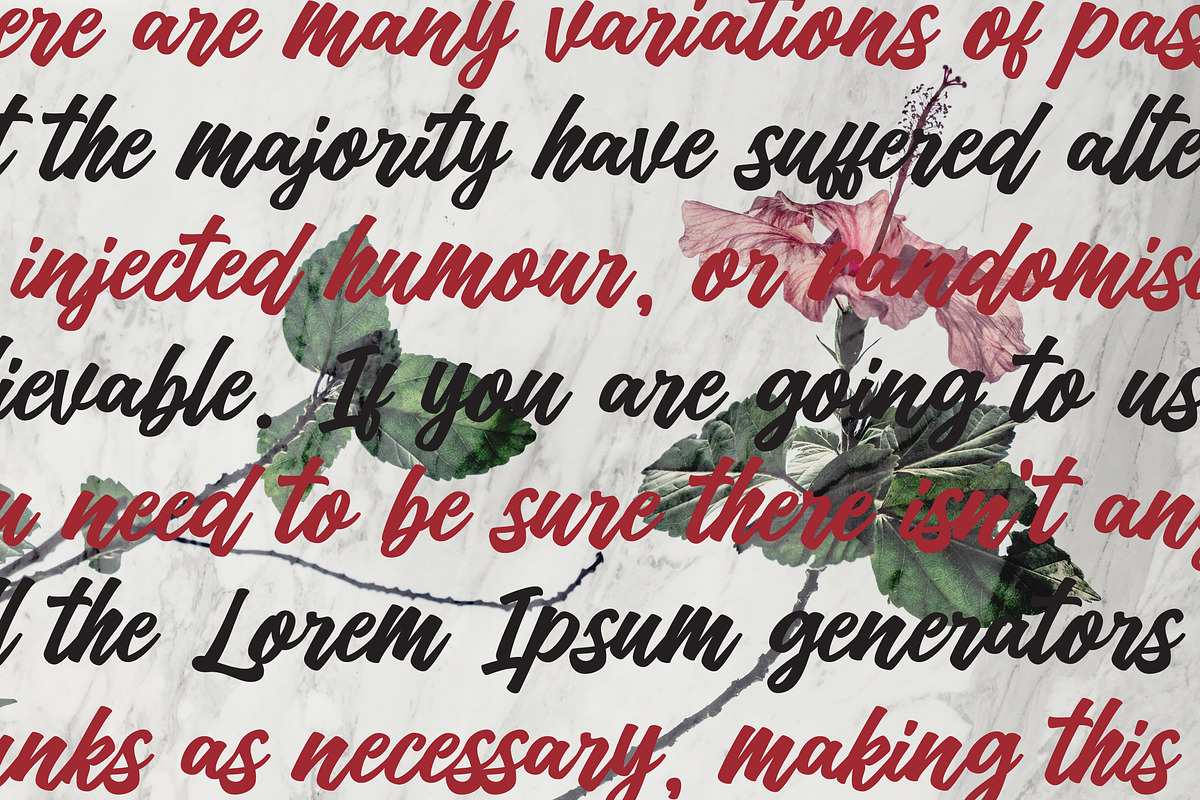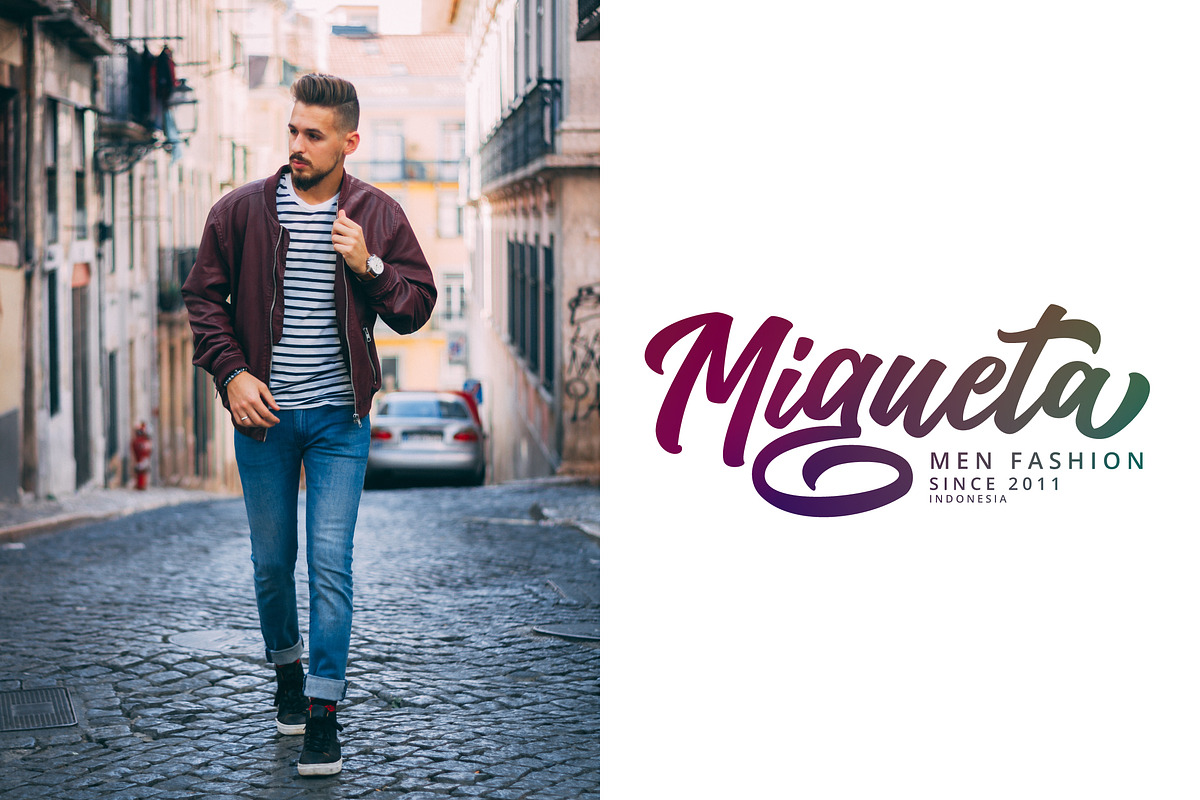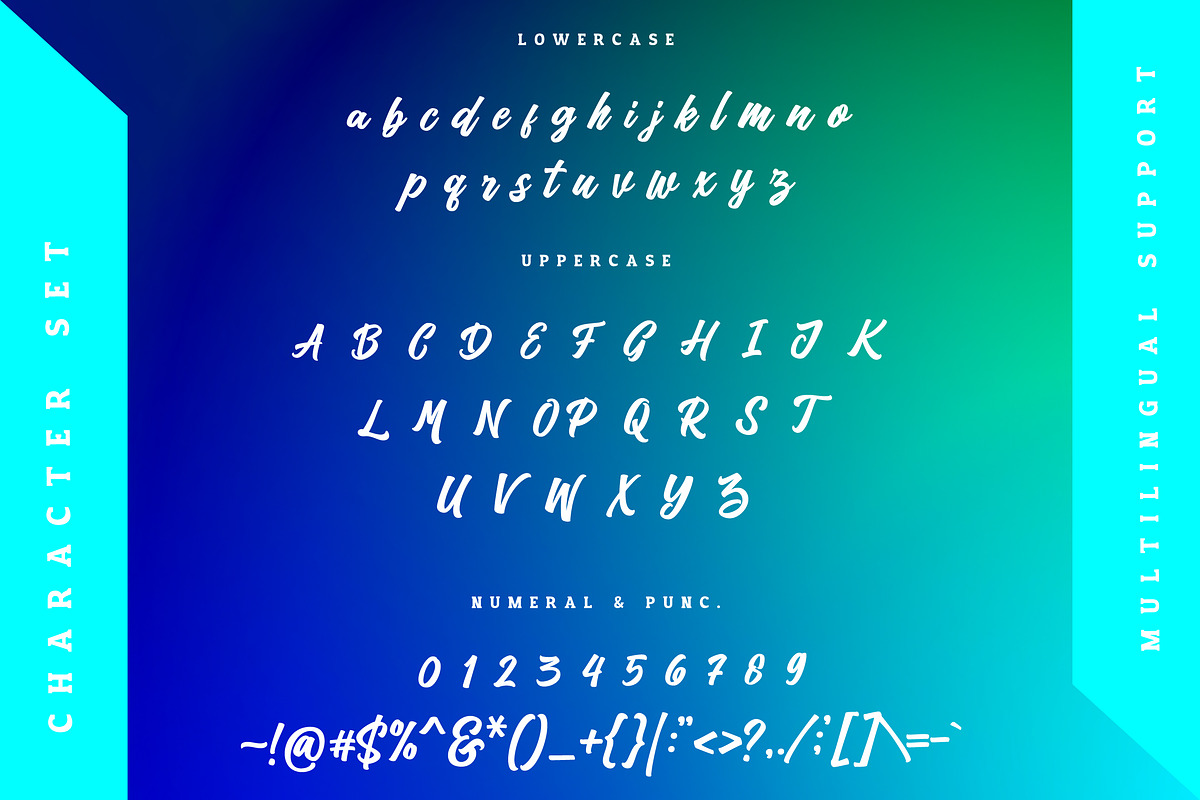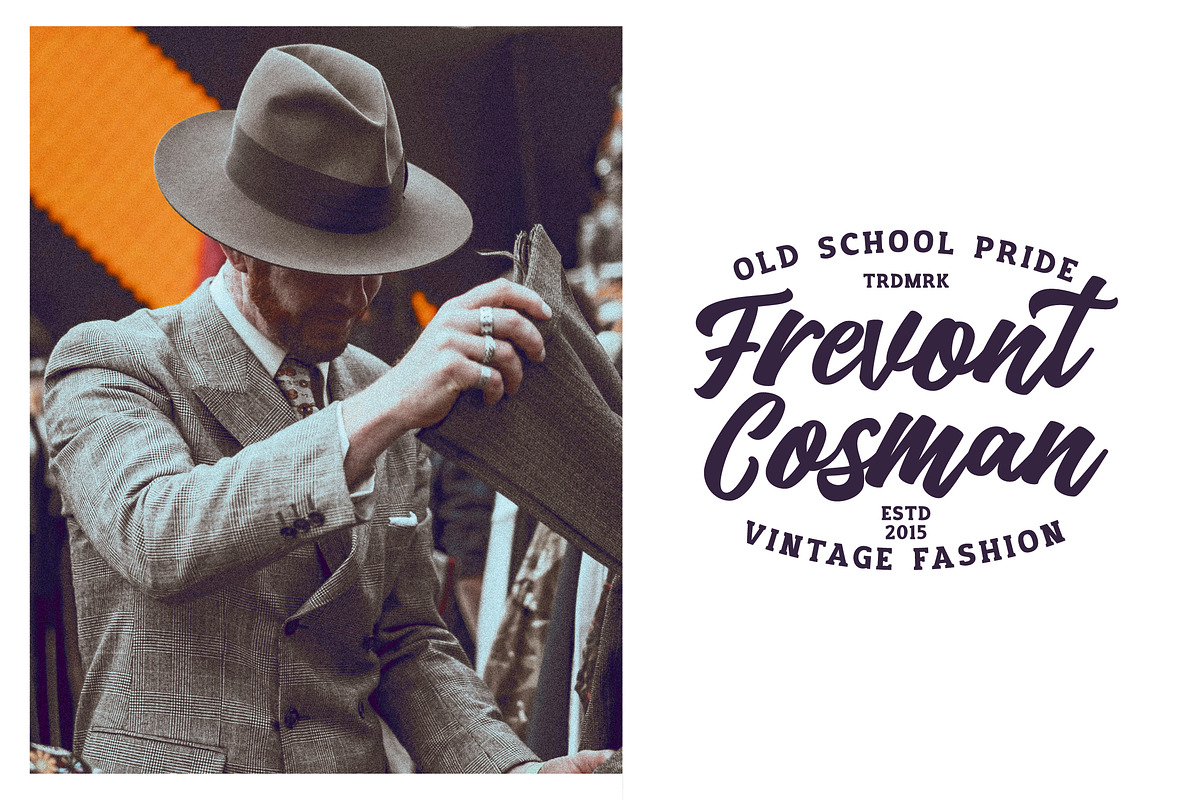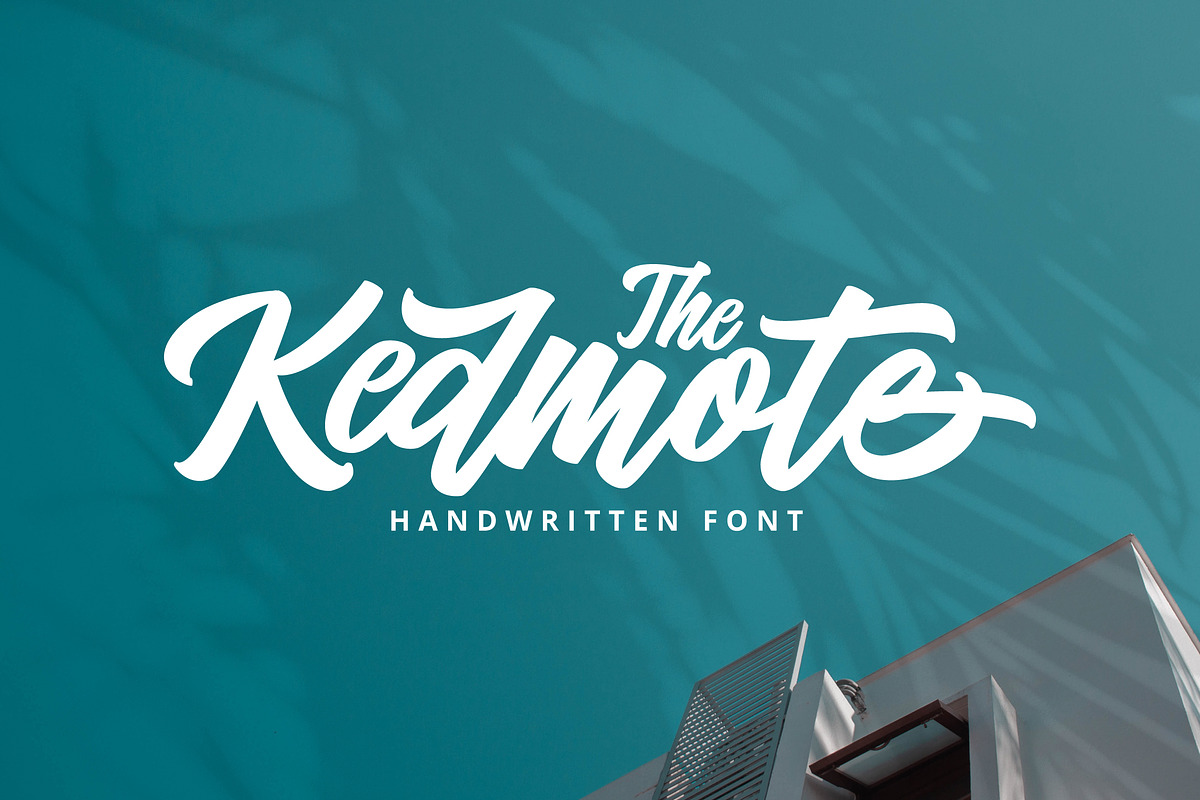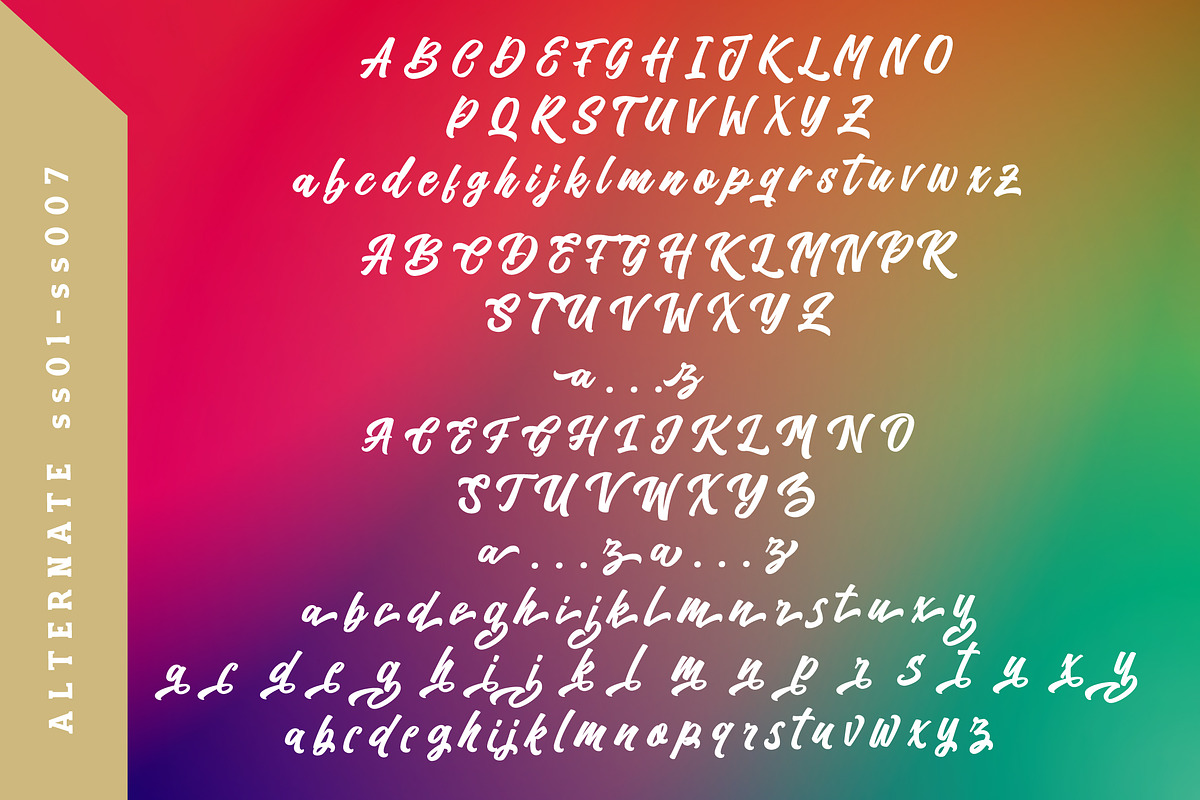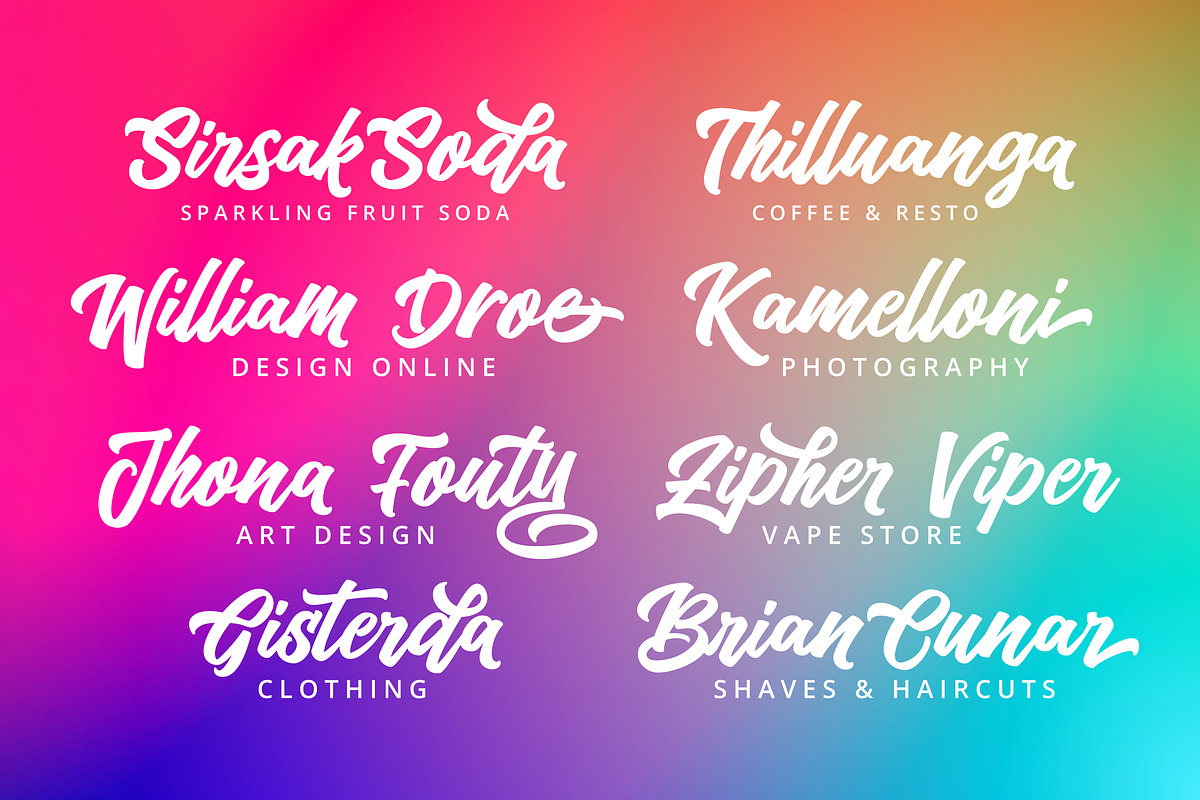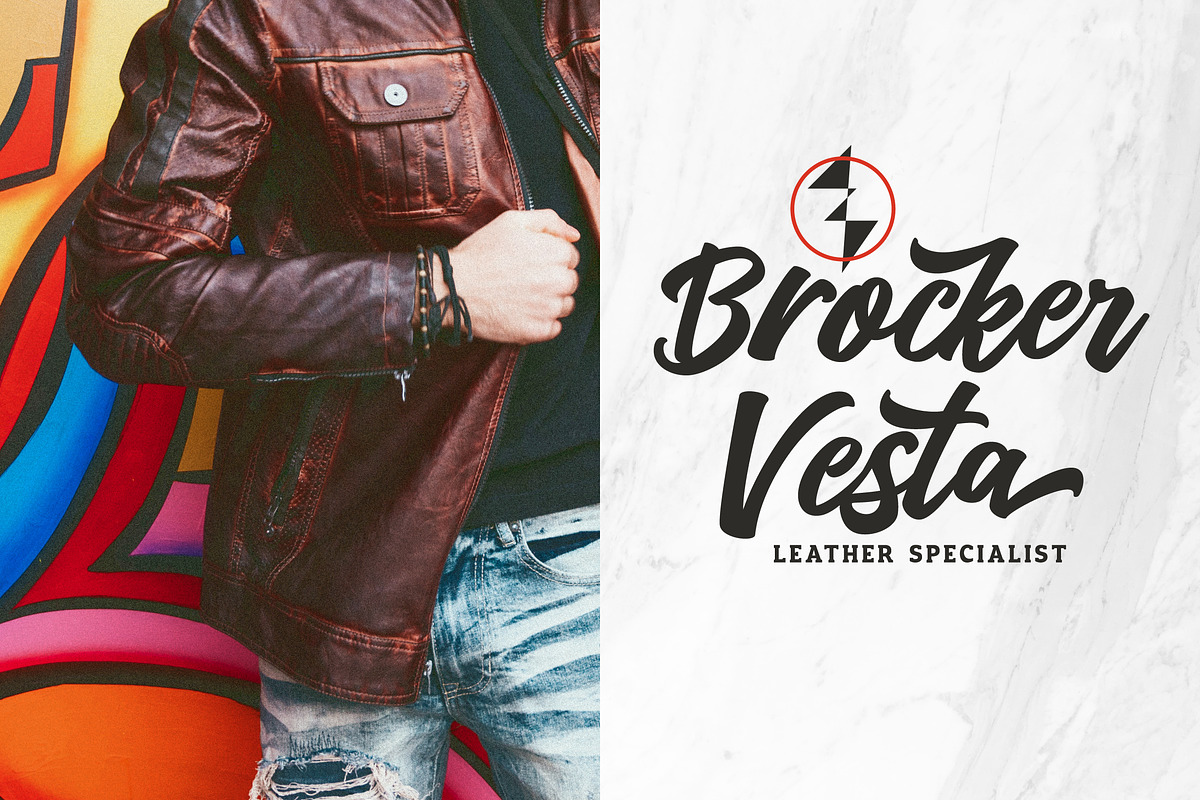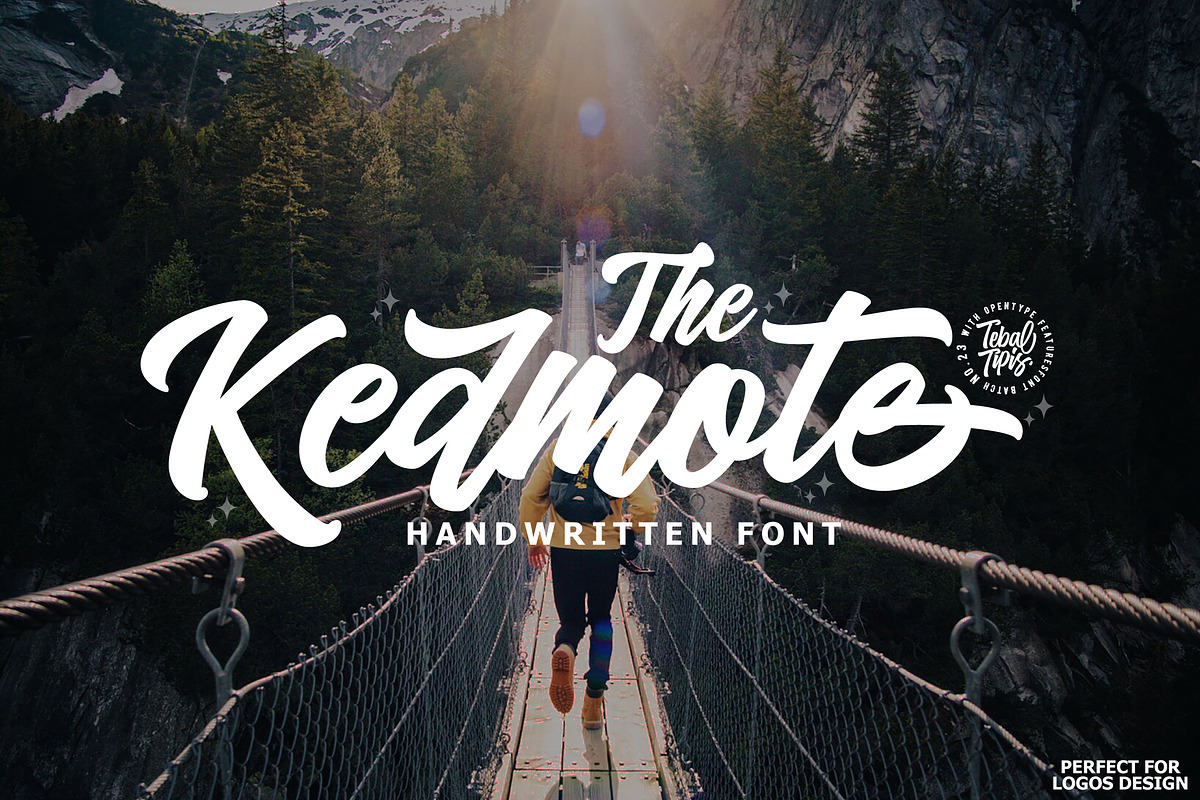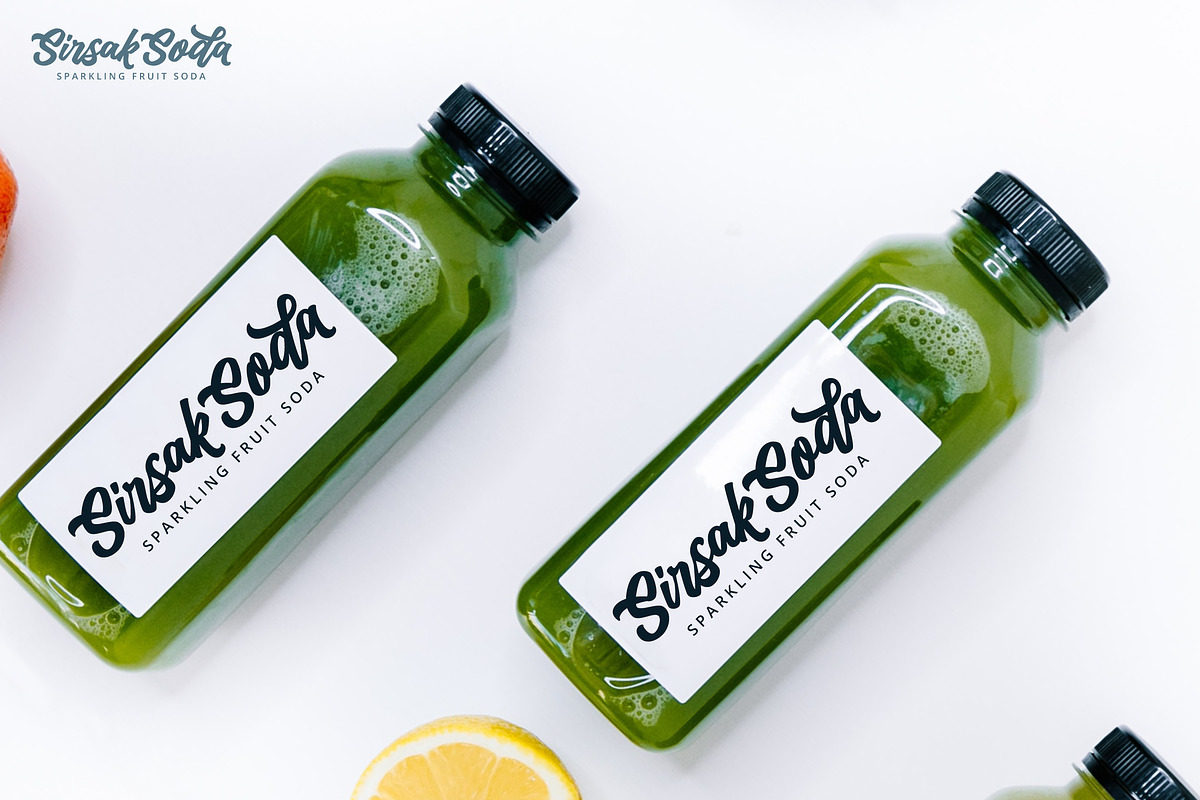
Kedmote - Bold Script Logotype
Kedmote Script is a new carefully crafted and nicely balanced curves on a script typefaces with personality. You can use it as a logo, badges, insignia, packaging, headlines, posters, t-shirt/apparel, greeting cards, and wedding invitations.
The flowing characters are ideal to make an attractive message. Mix and match Kedmote Script with a bunch of alternative characters to fit your project.
The alternative characters in this font were divided into several OpenType features such as Stylistic Alternates, Stylistic Sets, and Ligature. The OpenType features can be accessed by using the OpenType program such as Adobe Illustrator, Adobe Photoshop, and Adobe InDesign.